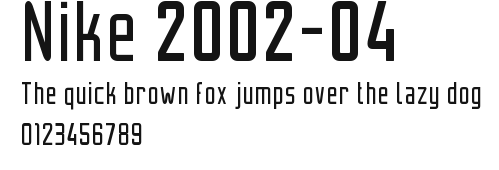
• Font Name: Nike 2002-04
• Full Font Name: Nike 2002-04
About Nike 2002-04.ttf
Nike 2002-04.ttf is a modern, elegant sans-serif font designed for ultimate readability and visual harmony. Perfect for branding, headlines, web design, and print materials.